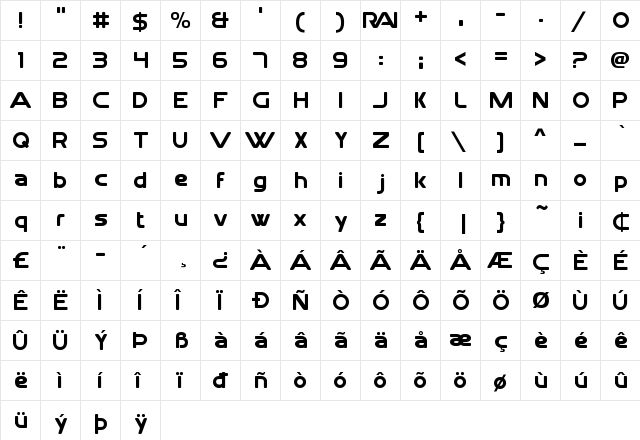
Rai Text 1983 Lowercase Regular
Design Context for Rai Text 1983 Lowercase Typeface
Rai Text 1983 Lowercase offers clean, dependable letterforms without strong stylistic allegiance, making it a practical choice for designers who need flexibility.